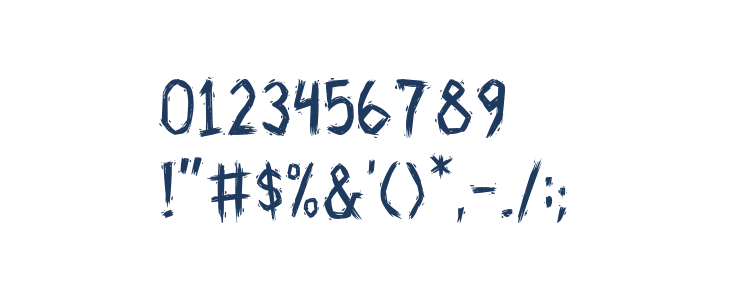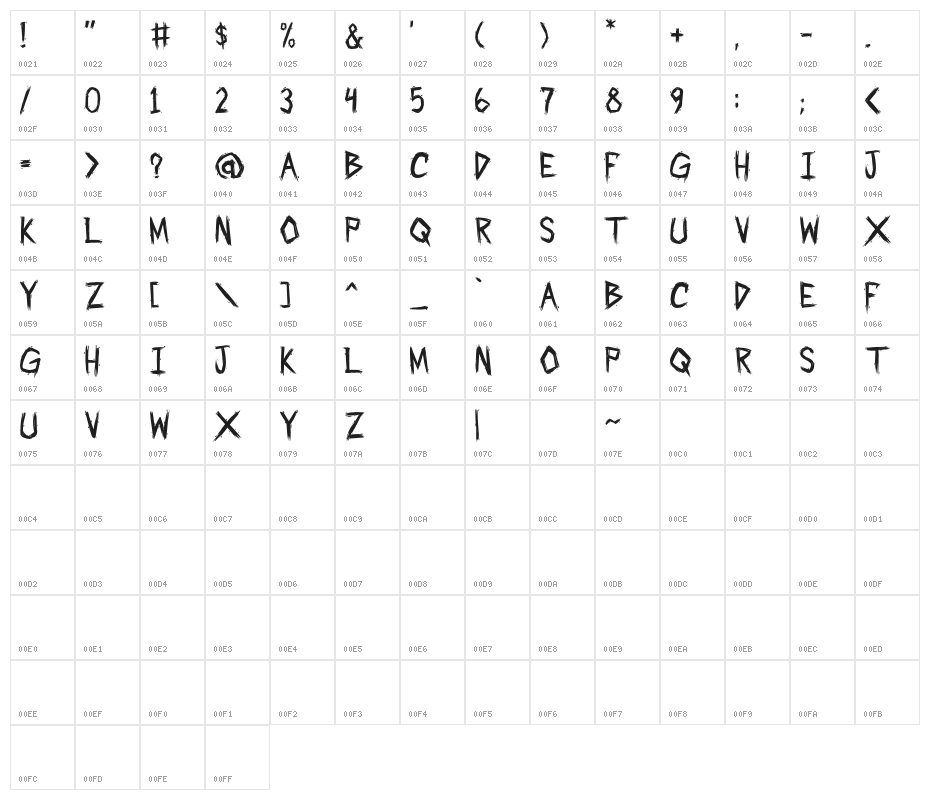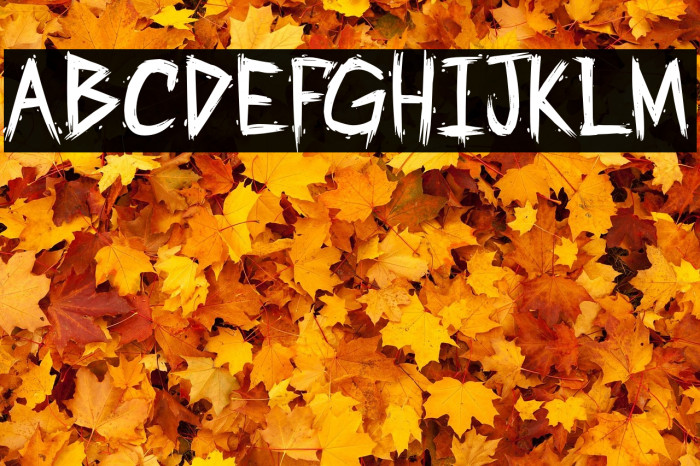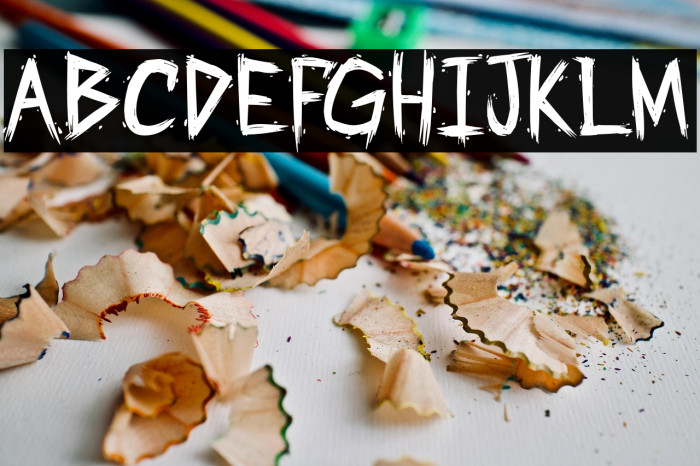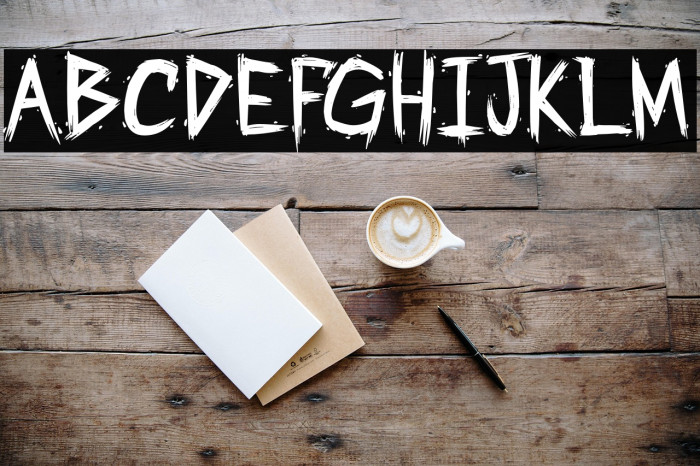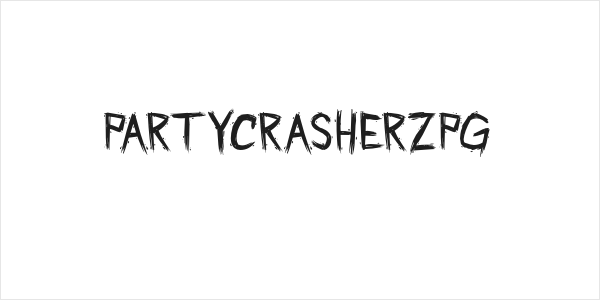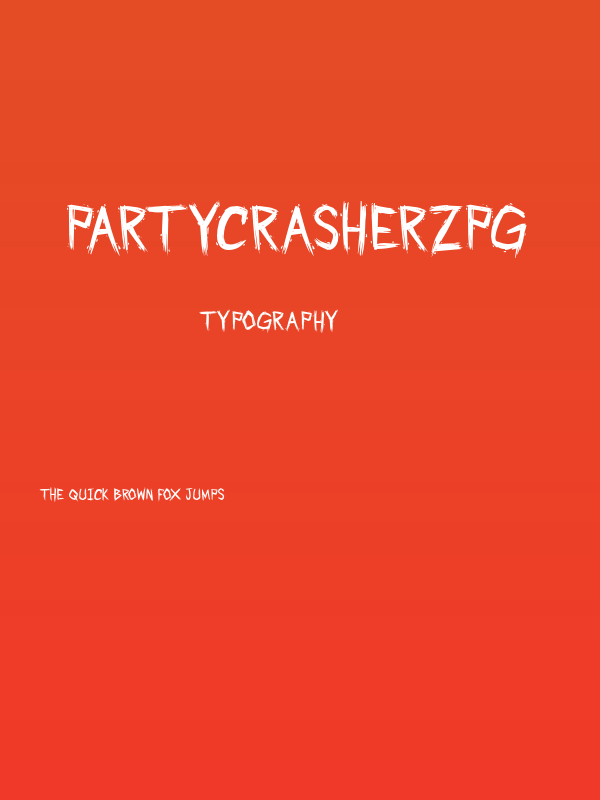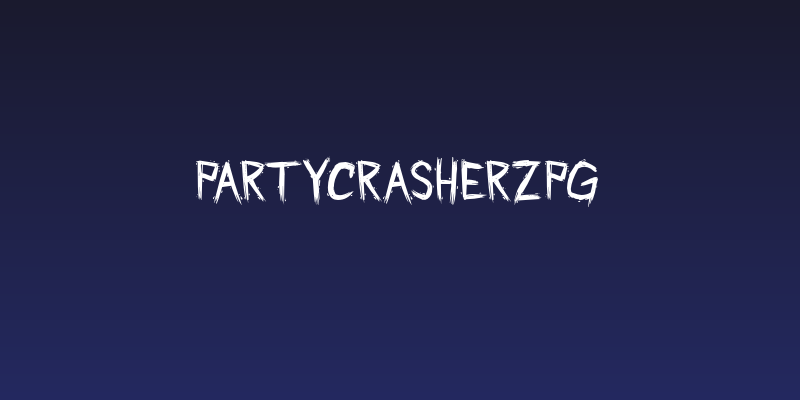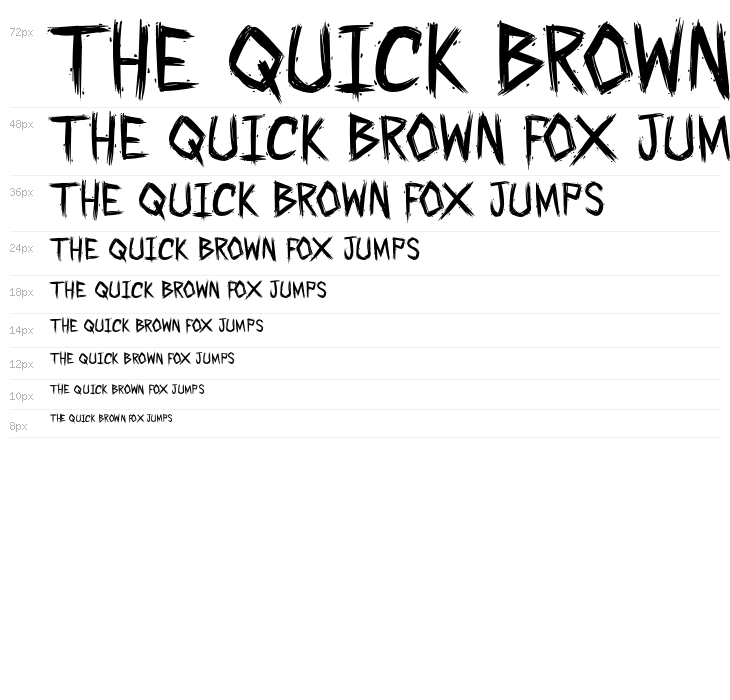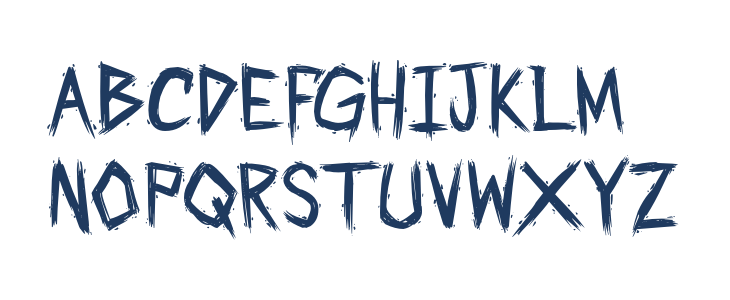
PartyCrasherzPG Font
PartyCrasherzPG Description
This font features a bold and edgy design, characterized by its rough, brush-like strokes that give it a rebellious and energetic feel. The letters are unevenly shaped, with jagged edges and varying thicknesses, creating a sense of movement and dynamism. The uppercase and lowercase letters maintain a consistent style, while the numbers and special characters complement the overall aesthetic. This font is perfect for projects that require a bold and unconventional look, such as music album covers, event posters, or edgy branding materials.
| Overall Style | Modern, Edgy |
| Proposed Projects | Ideal for music album covers, event posters, and edgy branding materials. |